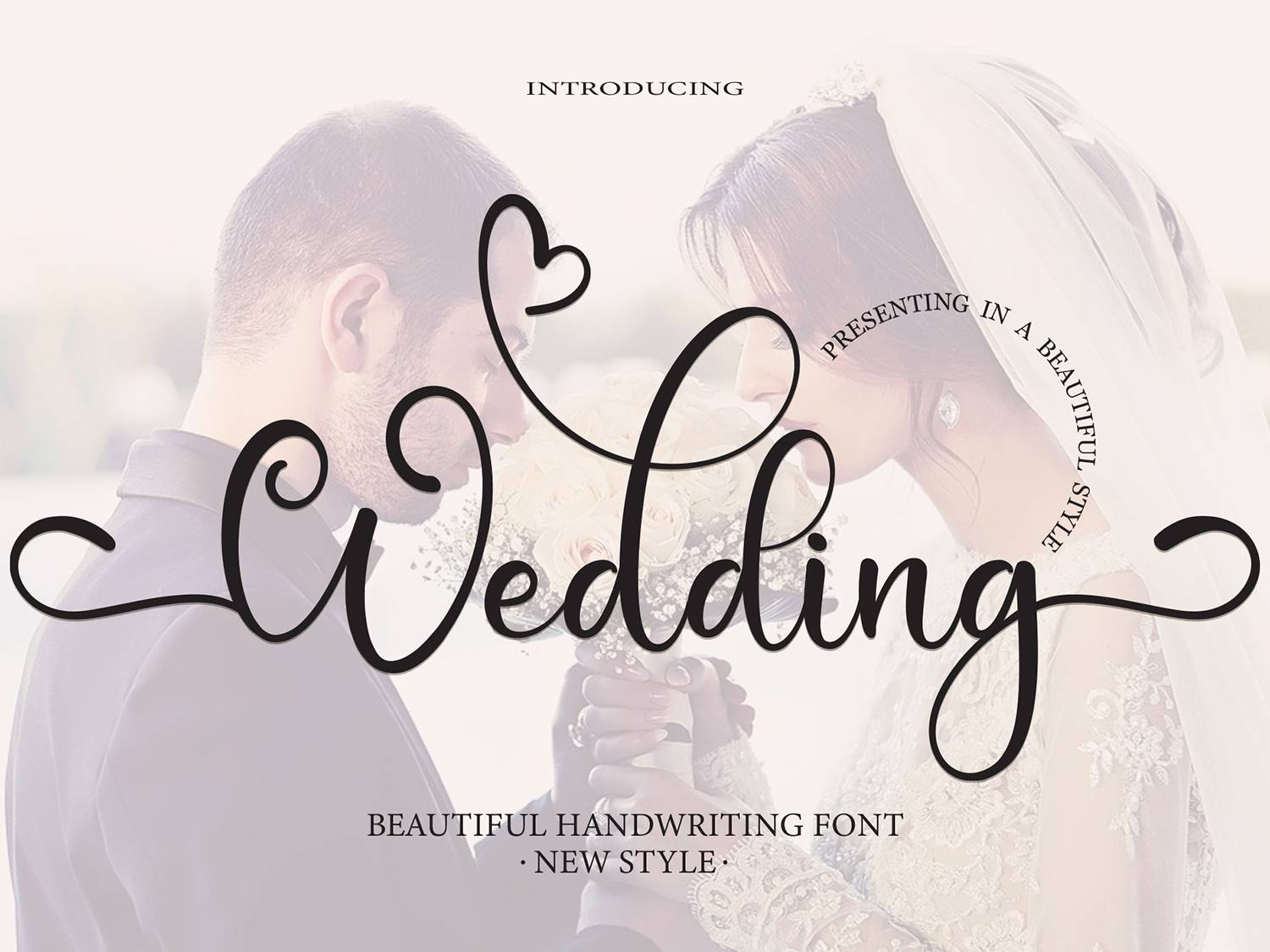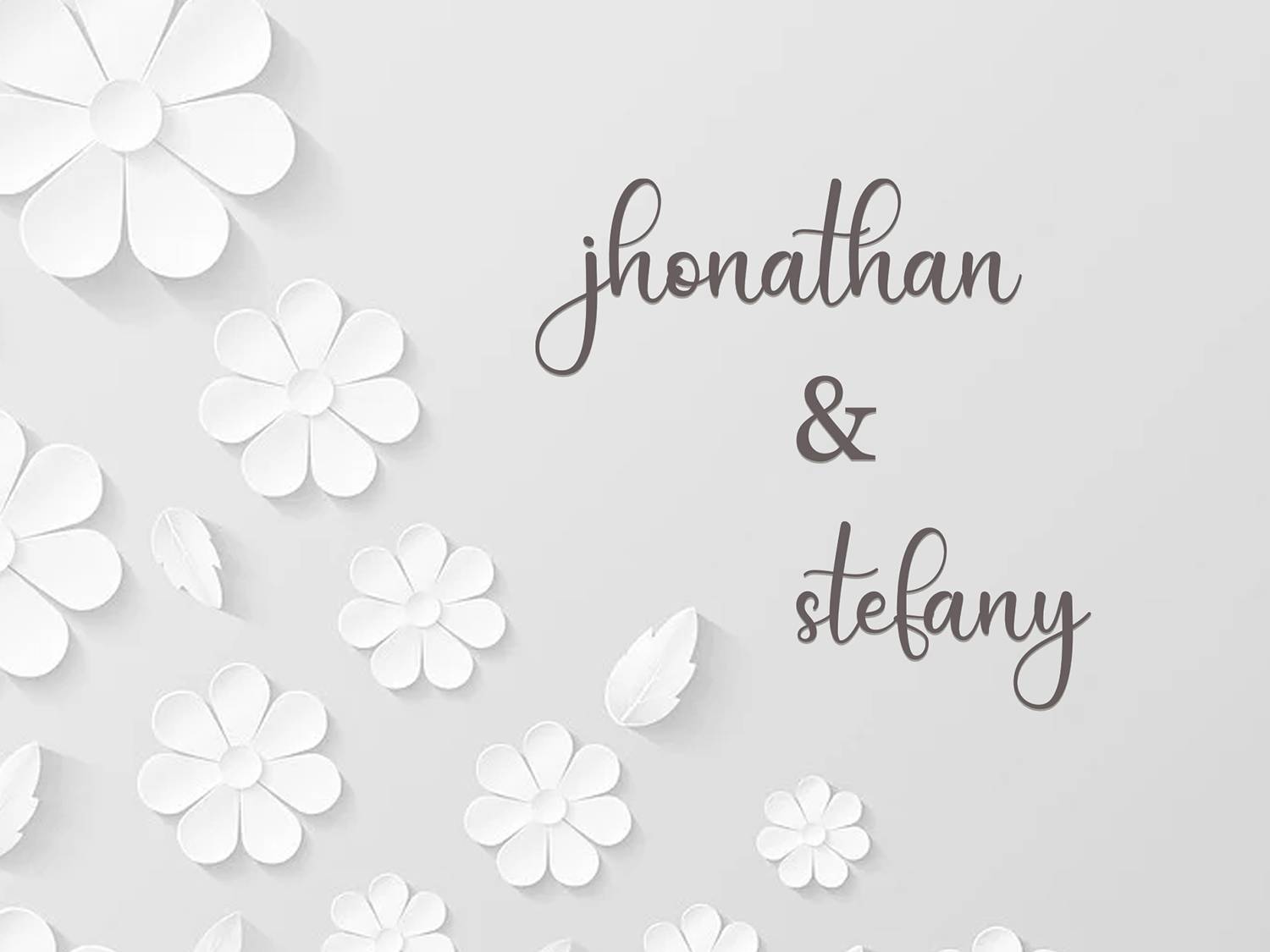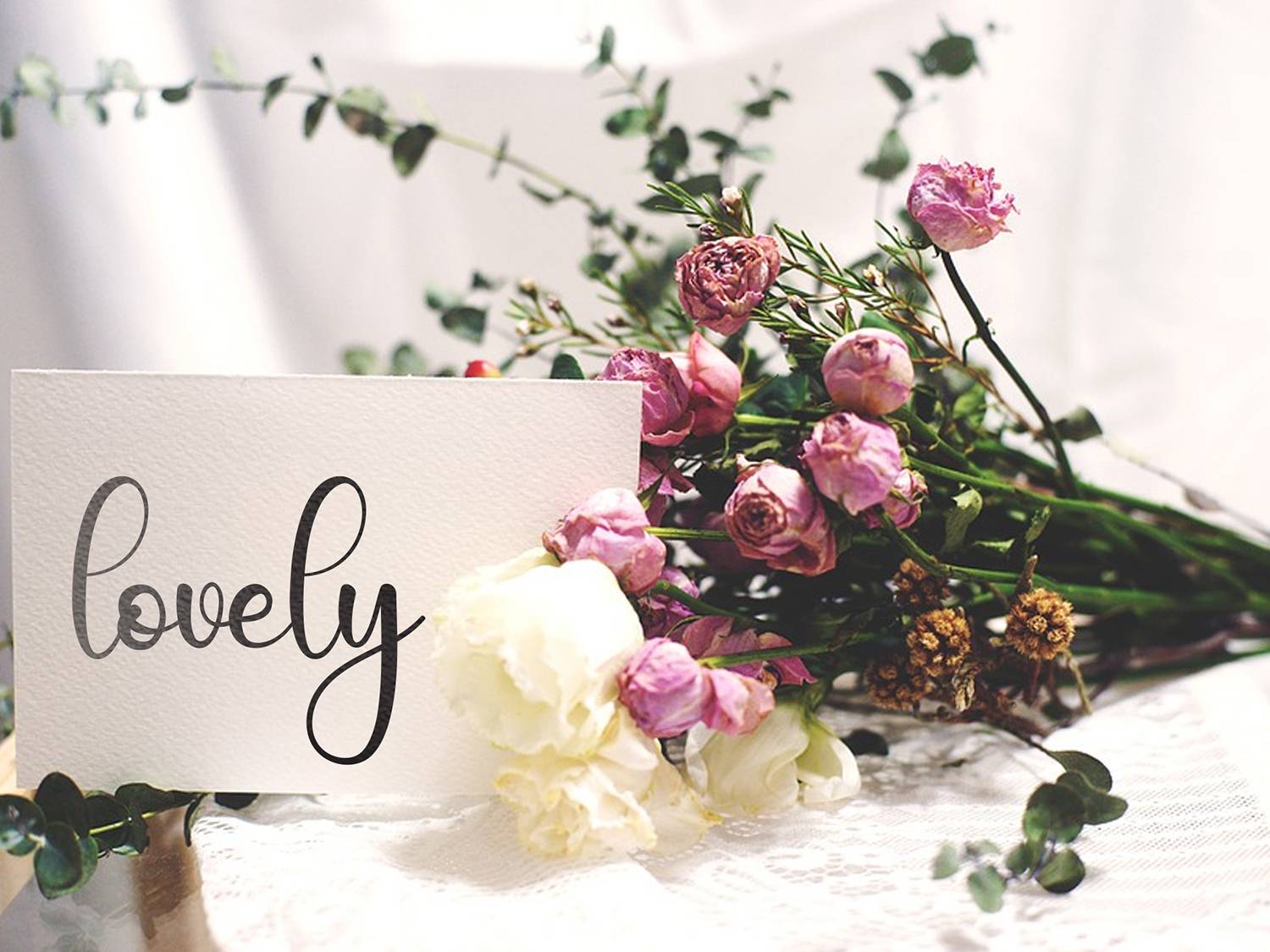
Wedding Font is a delicate and elegant script typeface with flowing, graceful strokes that evoke a romantic and sophisticated feel. Its thin, hand-lettered style and tall x-height make it perfect for wedding invitations, feminine branding, and any design that needs a warm, personal touch. This font works best in headlines and decorative text where its stylish curves and airy spacing can truly shine.
Wedding Font
About Wedding Font